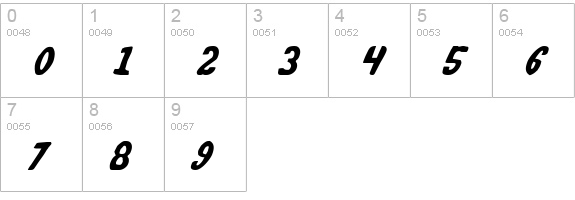
Whatafont Italic Font Details
Whatafont Italic is a distinctive, italic variant in the Whatafont typeface family \xE2\x80\x94 well suited to design and typography projects.
Introducing Whatafont Italic, a stylish and versatile font that adds a touch of elegance to any project. With its sleek and slanted letterforms, Whatafont Italic exudes confidence and sophistication. This font is perfect for creating captivating headlines, eye-catching logos, or adding a unique flair to your social media posts. Not only does Whatafont Italic boast a stunning design, but it also offers incredible versatility. Whether you're working on a modern website, a classic print design, or any other creative endeavor, this font seamlessly adapts to suit your needs. Its italicized style adds a dynamic and artistic element to your typography, catching the viewer's eye and leaving a lasting impression. One of the best things about Whatafont Italic is that it is absolutely free. Yes, you read that right – this exceptional font can be freely downloaded at FontsMarket.com. Say goodbye to expensive licensing fees and hello to unlimited creativity. Whether you're a professional designer or a hobbyist, Whatafont Italic allows you to access high-quality typography without breaking the bank. So why wait? Unlock your design potential and elevate your projects with Whatafont Italic. Download it for free at FontsMarket.com and let your creativity soar. With its stunning design and free availability, Whatafont Italic is the perfect choice for designers looking to make a bold statement. Don't miss out on this opportunity to enhance your designs with this remarkable font.